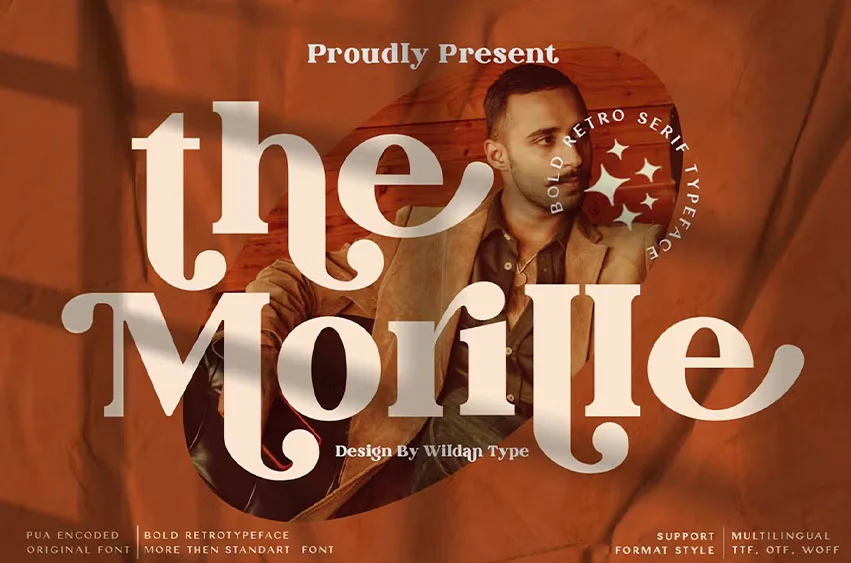
The Morille Font is a hearty rounded serif font with an easygoing confidence and a delightful nostalgic feeling, without the dusty burden of actual fonts from the last century. You can also get more elegant serif in alternate and ligature. Add to your most creative ideas and watch how they bring them to life!